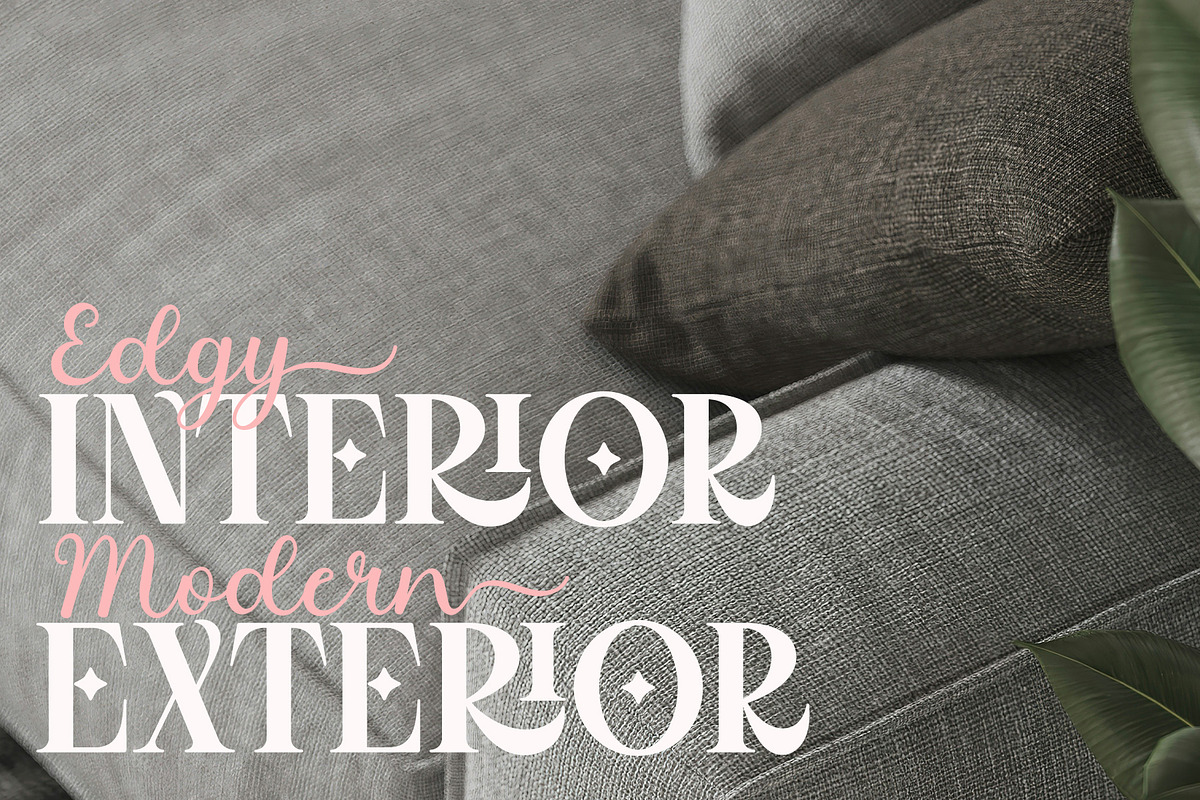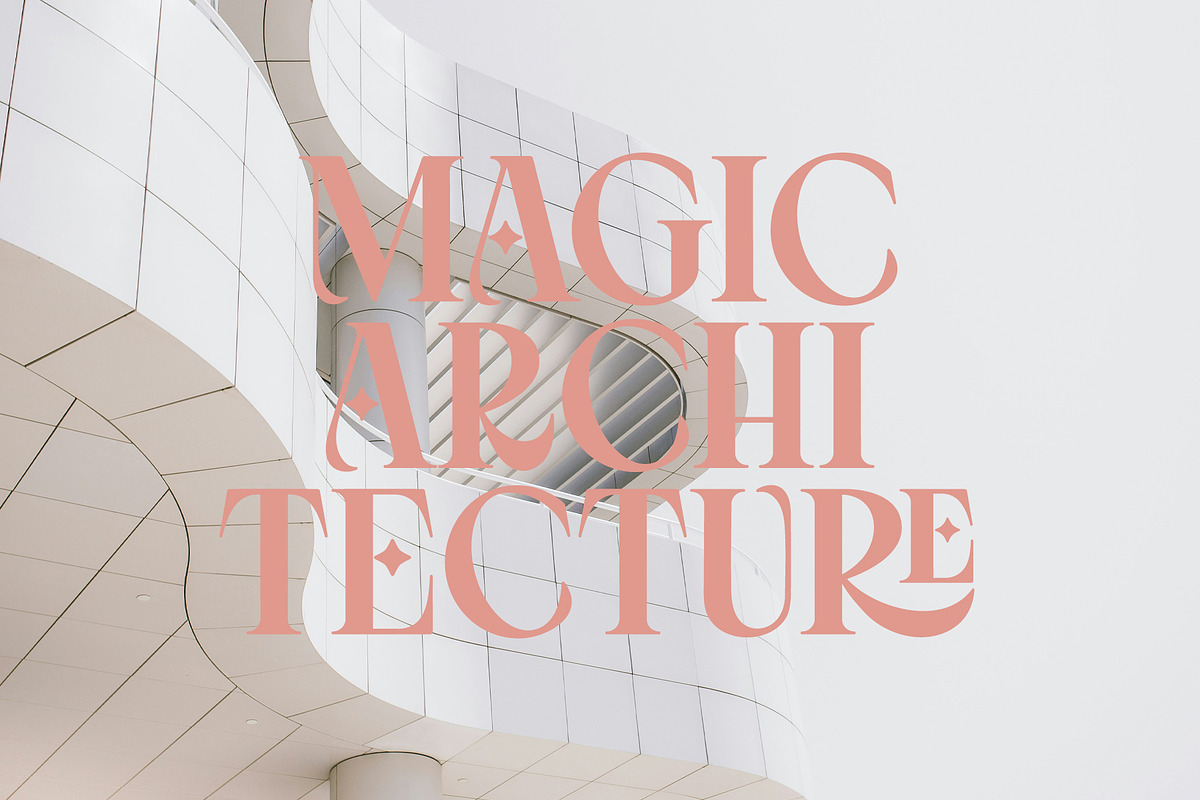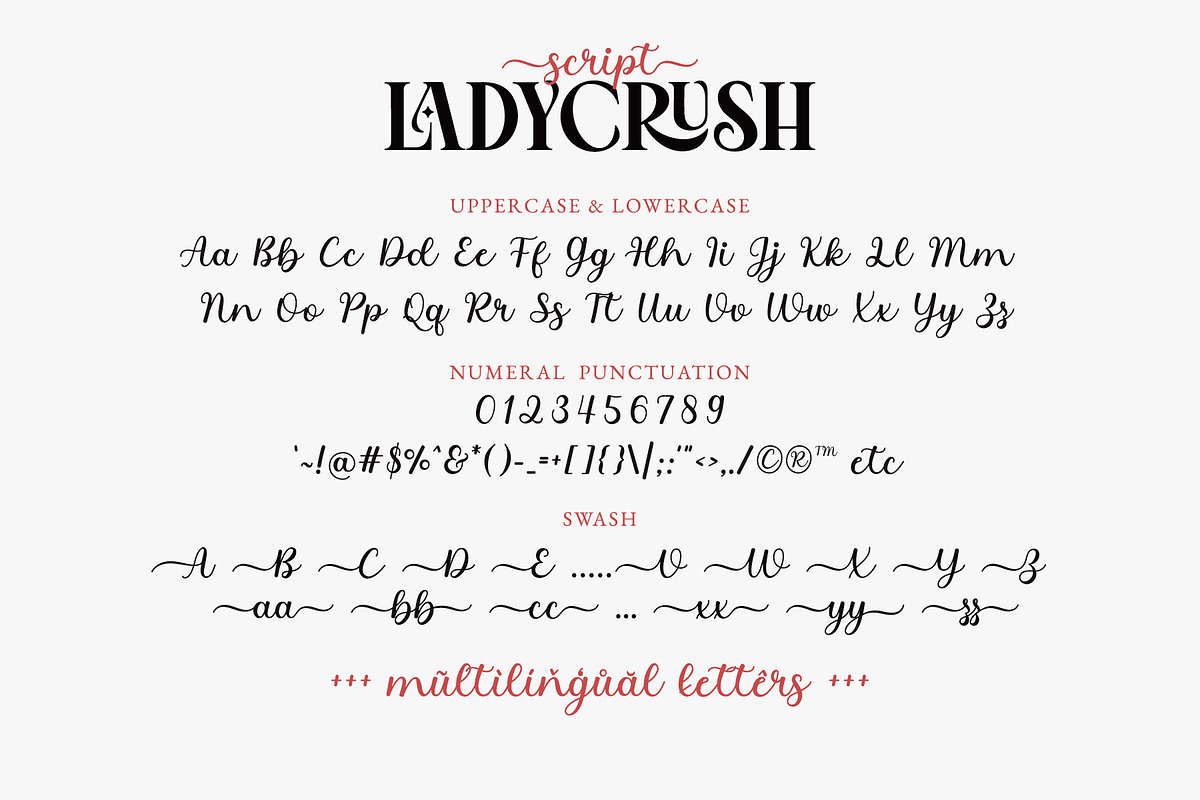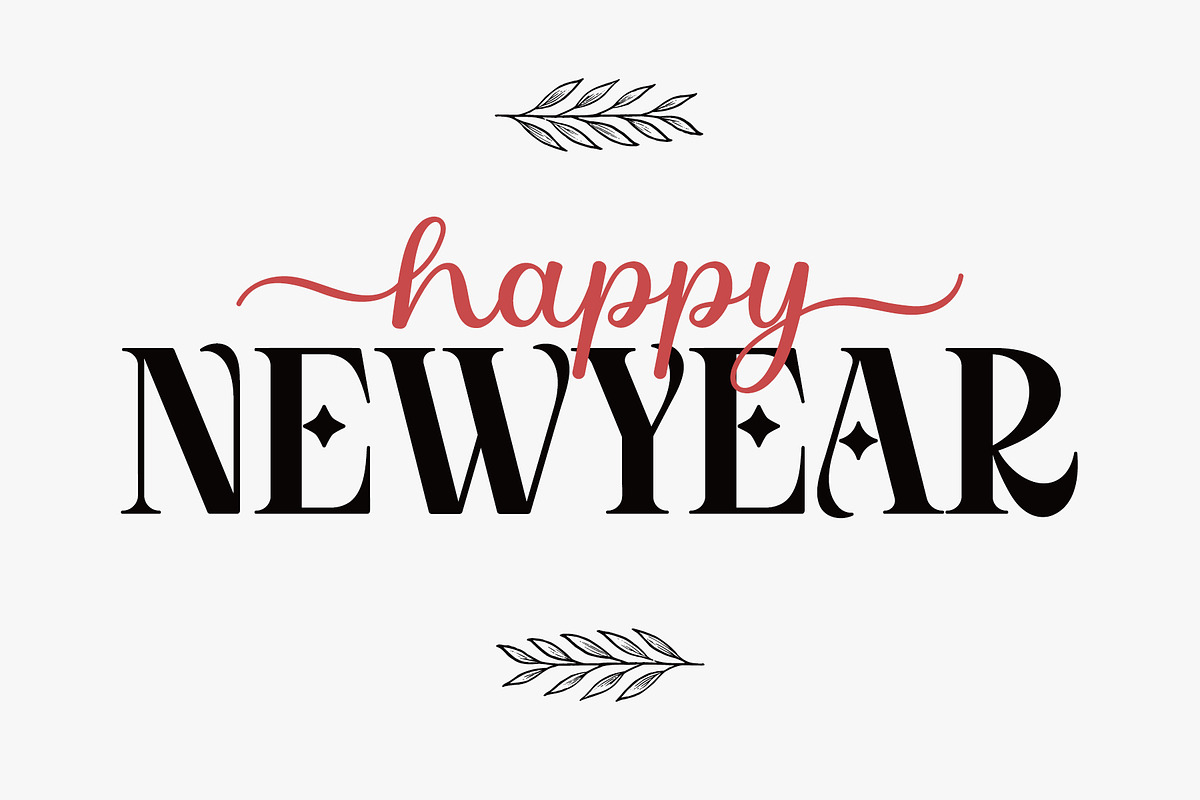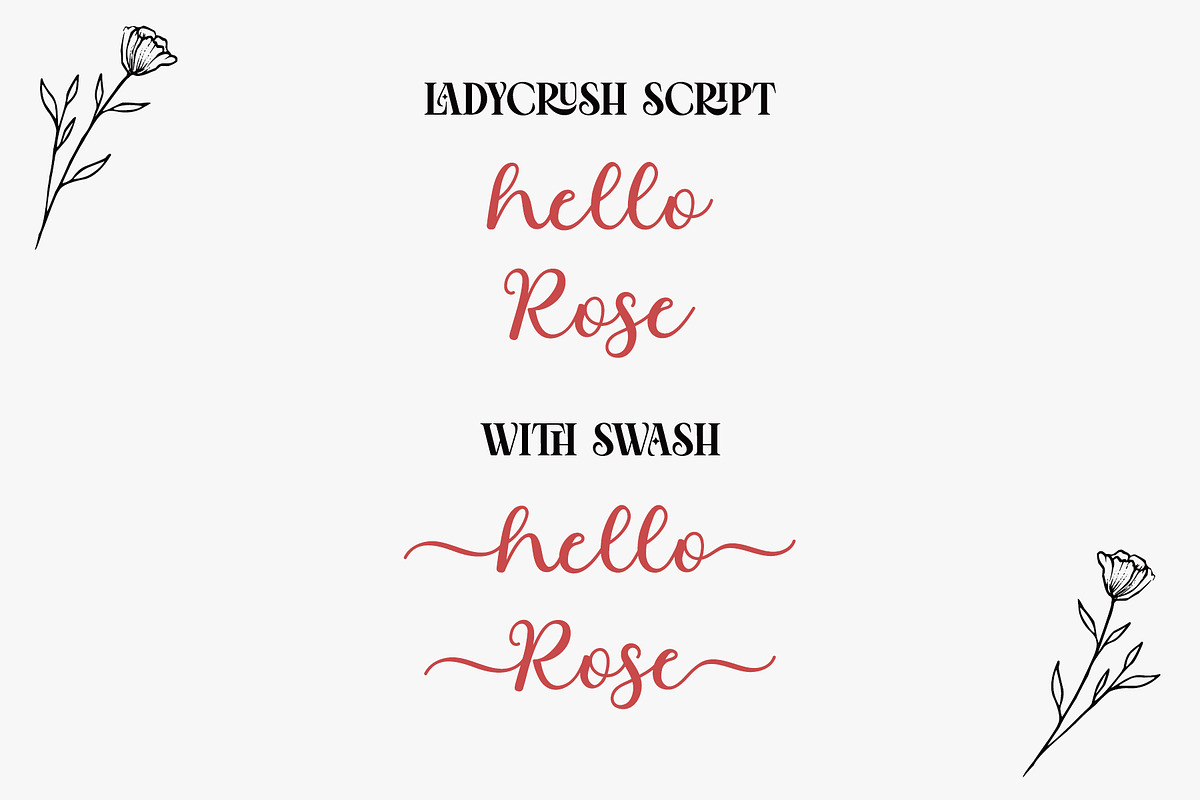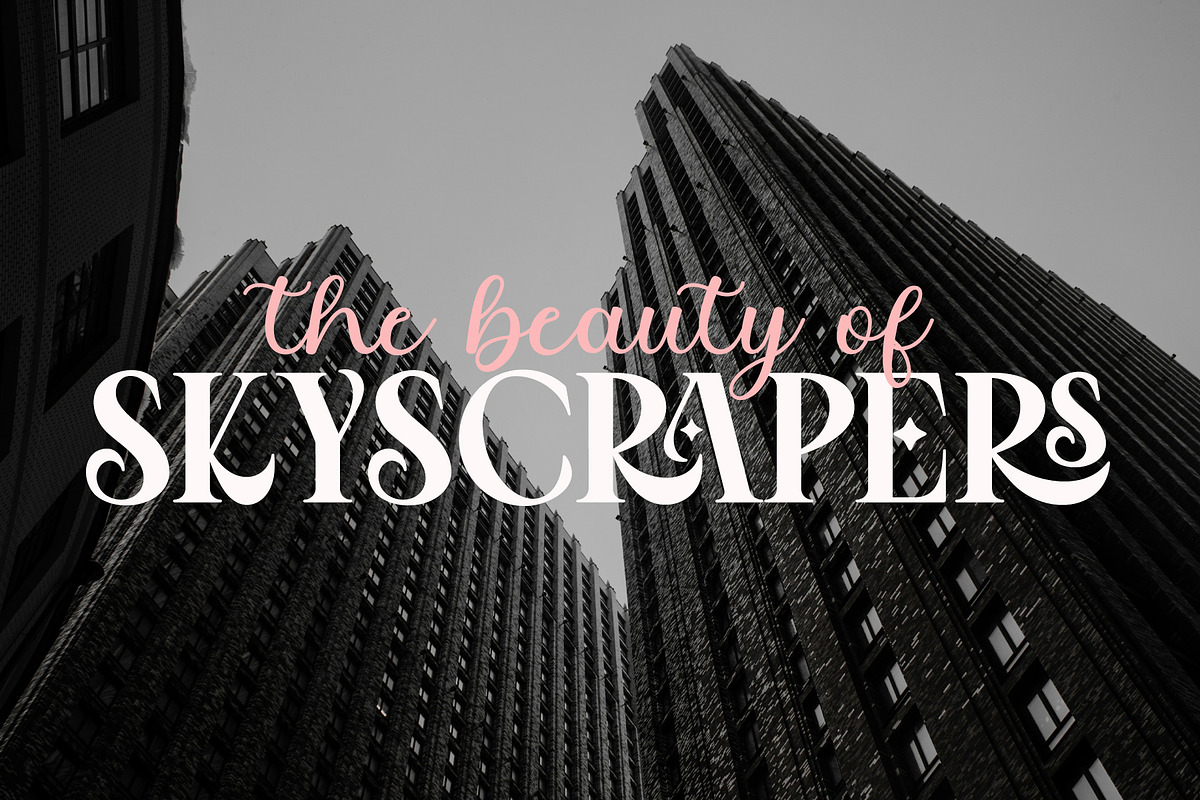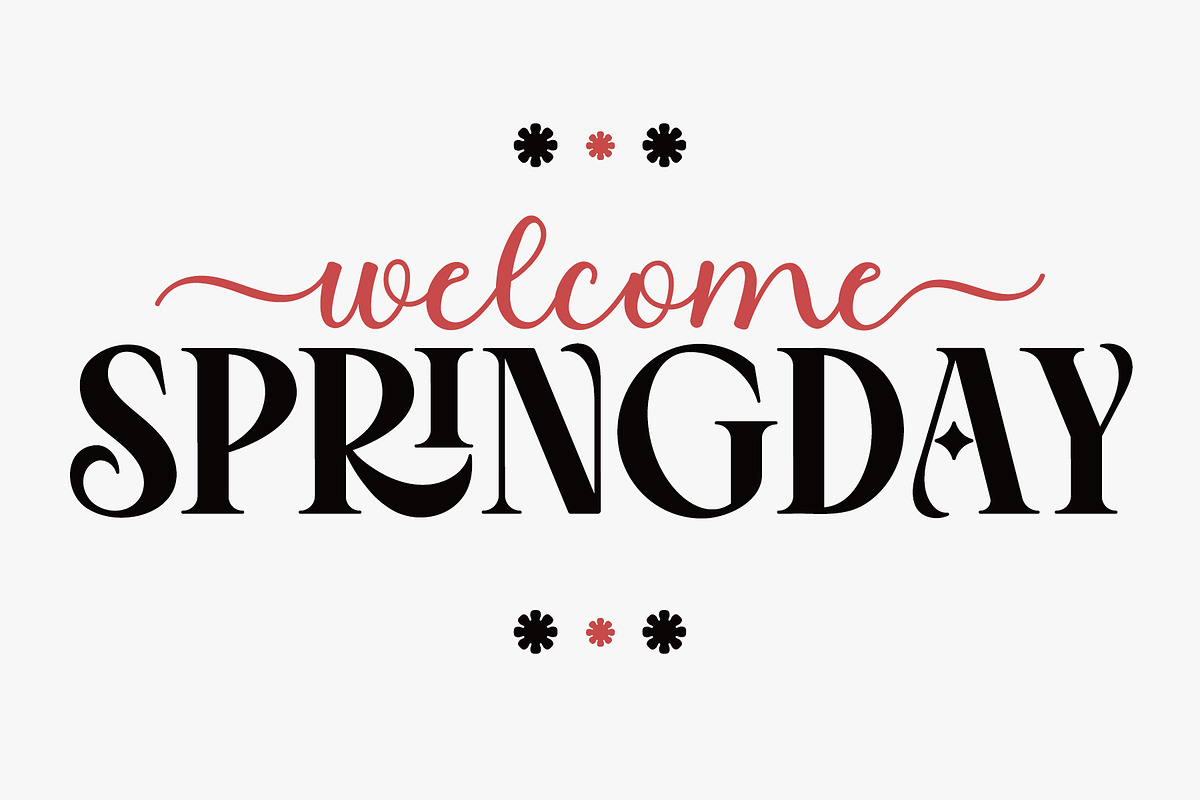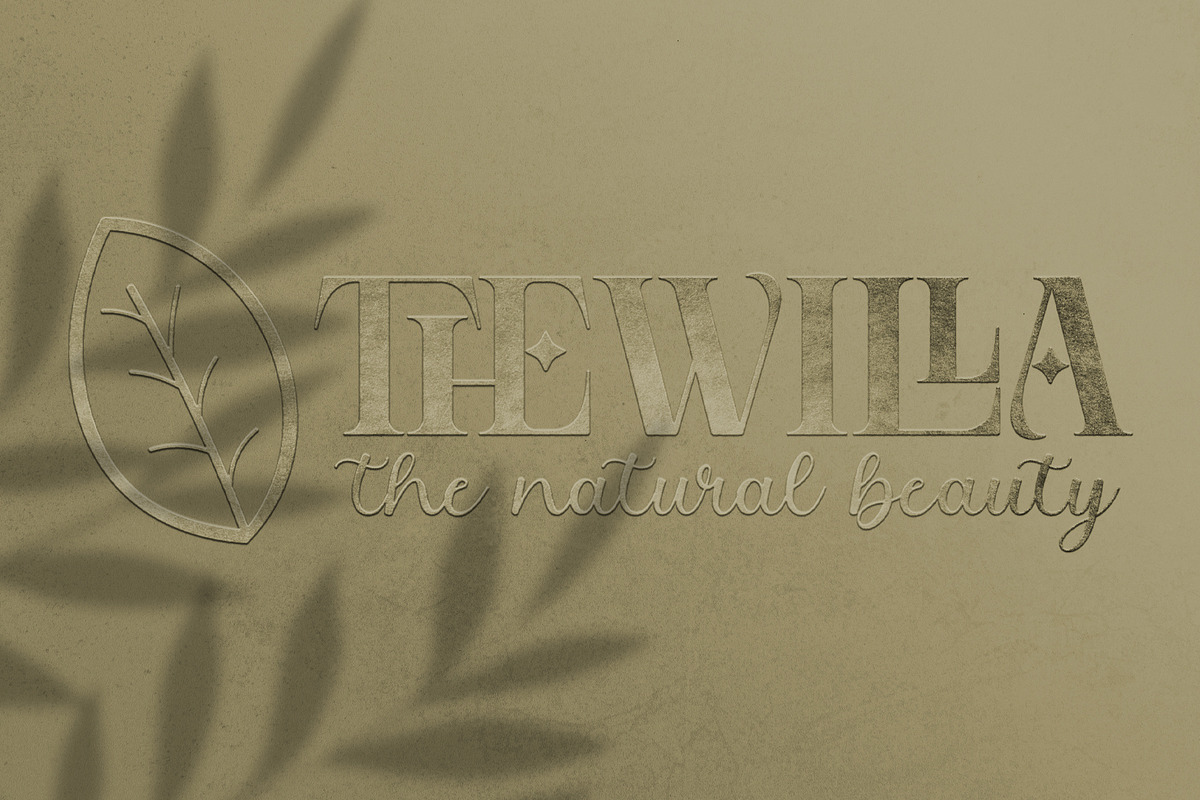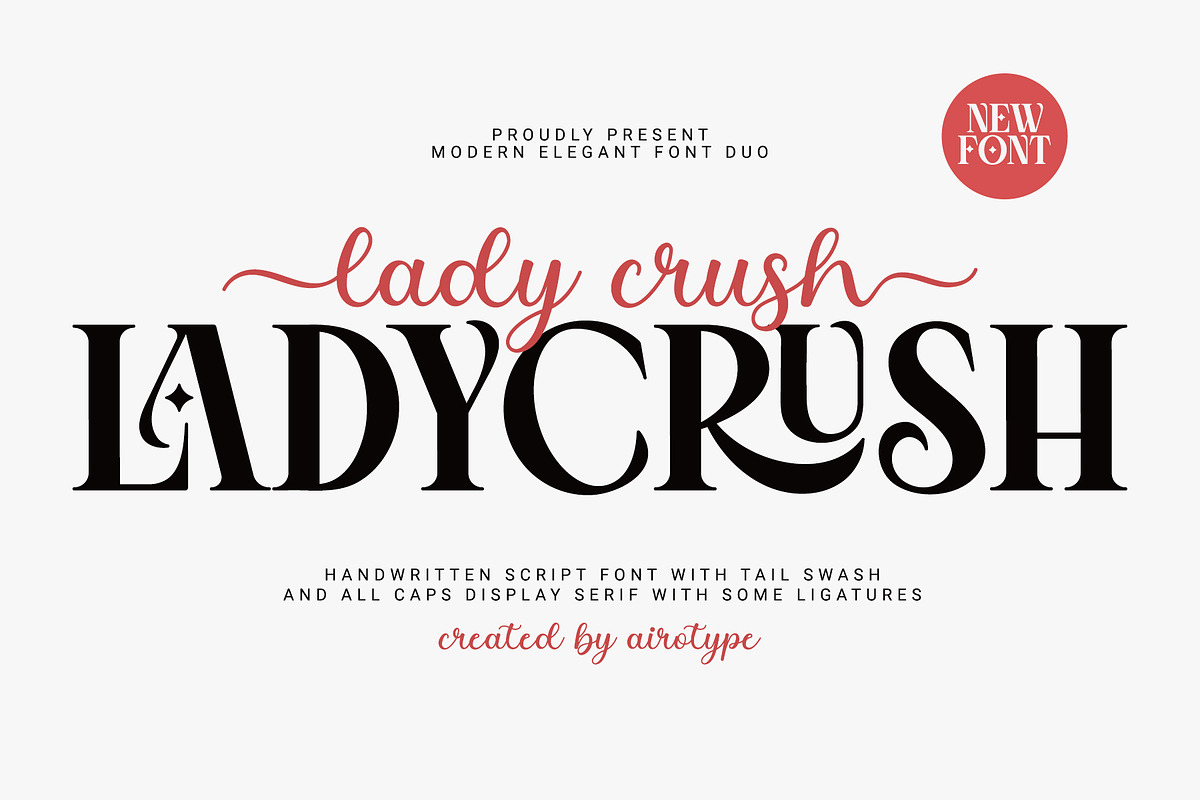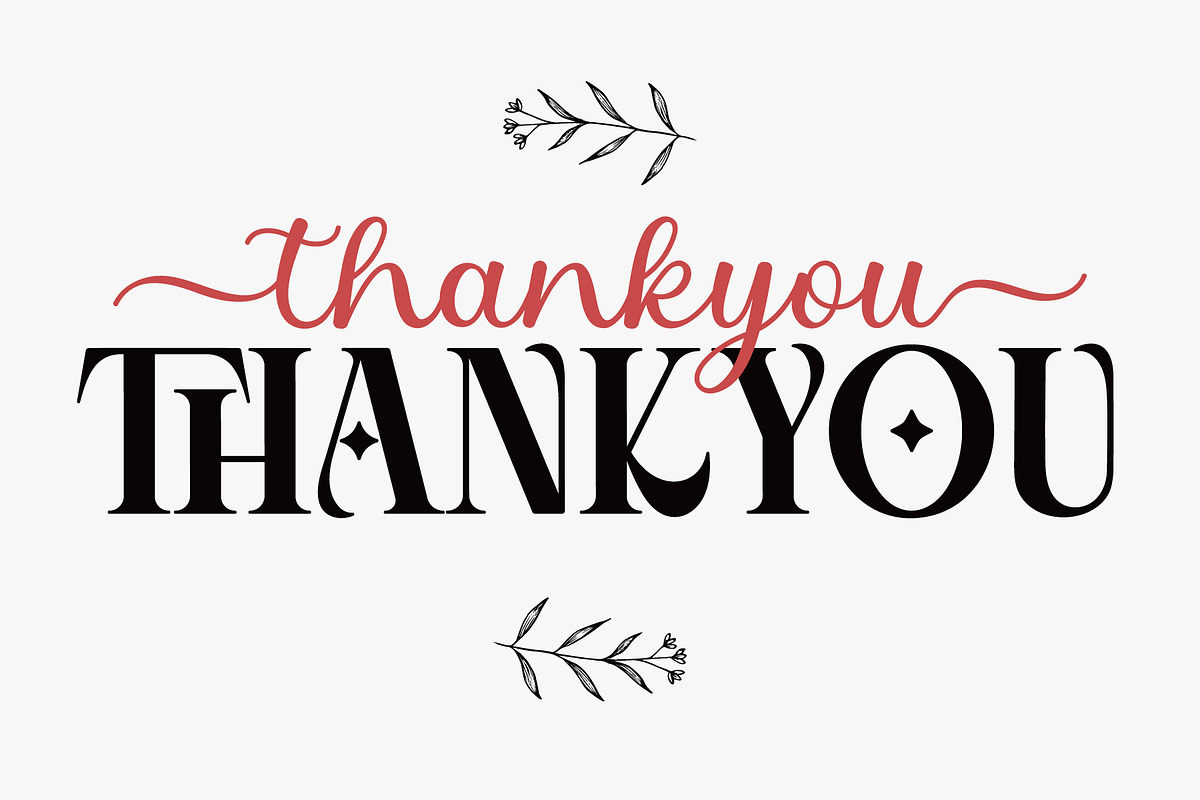
Lady Crush - Script & Display Serif
Lady Crush is script handwritten and All Caps Serif Font Duo. This font duo is modern, elegant, and luxury.
Lady Crush Script has tail swash in front and back. Lady Crush Display Serif has some ligatures. It gives more options in designing.
This font is beautiful font for any projects with modern touch, such as poster, logo, crafting, wedding invitation, branding, sticker, quotes, and many others.
- Script: Uppercase and Lowercase (include tail swash)
- Serif: All Caps with some ligatures
- Most Multilingual Accent